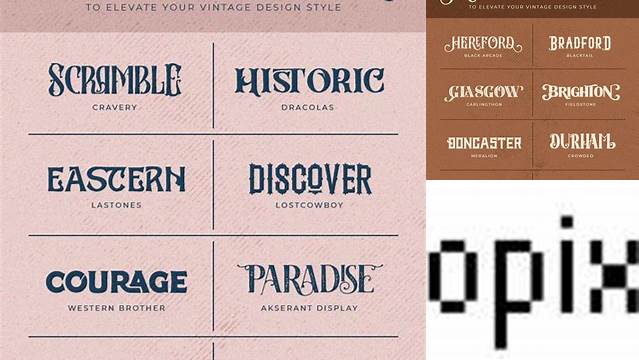
Free Fonts Retropix: Your Guide To Vintage Typography
Welcome, font enthusiasts! Today, we're diving headfirst into the awesome world of free fonts Retropix. Get ready to unearth some seriously cool typography that'll transport your designs back in time. Whether you're a seasoned designer or just starting out, this guide is packed with retro-themed fonts that are completely free to download and use. So, buckle up, guys, because we're about to embark on a typography adventure! Let's get this party started with some fantastic free fonts Retropix that will surely spice up your designs.
The Allure of Retropix Fonts and Why You Need Them
Free fonts Retropix have this undeniable charm, don't they? They evoke nostalgia, bringing to mind everything from vintage advertisements to classic movie posters. There's something about the curves, the serifs, and the overall aesthetic that instantly grabs your attention. But why are these fonts so popular? And why should you care about them? Firstly, they add personality. In a world saturated with generic fonts, Retropix fonts offer a unique voice. They help your designs stand out, giving them character and a distinctive flair. Think about it: a sleek, modern website can feel sterile, but inject some Retropix typography, and suddenly you've got a vibe. Secondly, they're versatile. You can use them for a wide range of projects, from branding and logos to website headers and social media posts. Need a vintage feel for a poster? Retropix fonts are your go-to. Want to add a touch of nostalgia to your website? The right Retropix font can do the trick. Thirdly, they tap into a sense of familiarity. Retro designs often remind us of simpler times, creating an emotional connection with your audience. It's like a visual comfort food that instantly draws people in. With the right free fonts Retropix, you're not just creating a design; you're telling a story, evoking feelings, and making your work memorable.
Let's delve deeper. The appeal of free fonts Retropix lies in their specific design elements. Many Retropix fonts draw inspiration from specific eras, like the 1950s, 60s, 70s, and 80s. The 1950s, for example, are characterized by bold, rounded fonts often found in diner signs and classic car advertisements. The 1960s embraced groovy, psychedelic fonts that capture the era's free-spirited vibe. The 1970s are famous for their disco-inspired fonts with high contrast and bold strokes. The 1980s, on the other hand, brought us neon-style fonts, pixelated fonts, and bold geometric styles that defined the decade. Free fonts Retropix often incorporate these design elements, giving your work an authentic look. It's not just about the style; it's also about the feel. These fonts give a sense of authenticity and allow your work to resonate with an audience that appreciates vintage design. The use of free fonts Retropix provides an opportunity to create a visual link with the past and create a specific brand that reflects your idea.
Each website has its own set of features and perks, making them useful in different ways. Google Fonts is your go-to if you want something quick and easy. The website offers a clean interface with an easy search and download function. The fonts are also optimized for web use, making them ideal for website projects. The search options allow you to filter by categories, styles, and licenses, giving you total control over the font you are looking for. 1001 Fonts is a platform that is known for its extensive library. If you are looking for variety, this is the place to start. They often feature fonts that might not be readily available elsewhere, and their filtering system allows you to easily find something that perfectly fits your retro needs. Font Squirrel is a website that values quality and legality. They have a curated collection of free fonts, and their license checking tool gives you total peace of mind. They ensure all fonts are high-quality and safe for commercial use. Behance and Dribbble offer unique design approaches, as well as a range of fonts designed by professionals. You might find unique free fonts Retropix here from upcoming designers. Creative Market is a bit more of a marketplace, but they often offer amazing freebies. It's worth checking their free section regularly to find some hidden treasures. The availability of free resources like free fonts Retropix is huge for designers.
Evaluating Free Retropix Fonts: What to Look For
So, you’ve found a cool Retropix font, what’s next? Evaluating a font is just as important as finding one. You need to know how to assess its quality, its versatility, and its overall suitability for your project. Here are some things to keep in mind: Legibility is key. Is the font easy to read at different sizes? Check the font in various sizes and weights to make sure it's readable. If it's a display font, this might be less of a concern, but if you're using it for body text, it's essential. Spacing matters. Does the spacing between letters and words look good? Poor spacing can make text difficult to read. Pay attention to kerning (the space between individual letters) and tracking (the overall spacing of a word or phrase). Look for alternate characters. Does the font offer alternate characters or ligatures? These can add visual interest and sophistication to your design. Think about the context of the font. How does it fit your project's specific needs? Is it suitable for the medium (print, web, etc.)? Does it match the tone and style of your design? Free fonts Retropix come in all shapes and sizes, so you must know what you're looking for.
Let's dig deeper: Assess the font's technical quality. Is the font well-designed and technically sound? Check for smooth curves, consistent line weights, and no visible flaws. Check if the font includes different weights and styles (bold, italic, etc.). The more options available, the more versatile the font. Does the font offer good language support? Check if it supports the characters and glyphs you need for your language or project. Does the font's license allow for the use you need? Ensure the font is licensed for commercial use if needed and that you are following all licensing rules. How does the font look when used at various sizes? Test the font in different sizes to make sure it remains legible and visually appealing. Be aware of the visual appeal and how well the font will go with other fonts. Pair it with other fonts and colors to see how it looks. Some free fonts Retropix might look great on their own but clash with other elements in your design. Remember that the choice of font influences the success of your design, so take your time to evaluate all your options.
1. Understanding the Definition and Origins of Retropix Fonts
Free fonts Retropix represent a fusion of retro aesthetics with digital typography. They draw inspiration from various historical periods, primarily the mid-20th century, including the 1950s, 60s, 70s, and 80s. The term